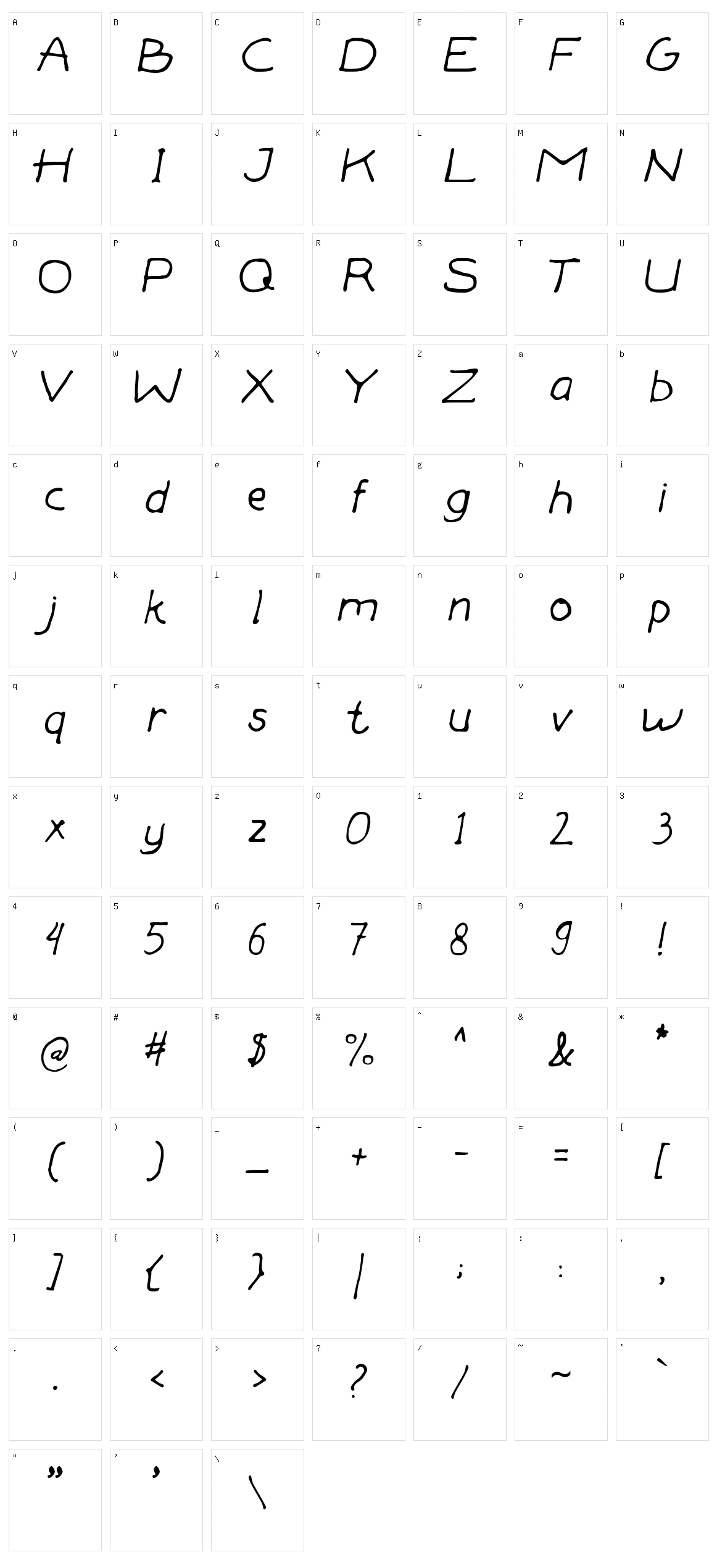
The free font Forestia Handed is carefully designed by Dedisain Studio, showcasing a thoughtful balance of creativity and usability and falls under the Script font style. When you download the ZIP file, it contains only 2399.88 KB of font files, making it lightweight and quick to download. Please review the license details below to understand permitted usage and distribution rights. If license information is not available, we recommend using this font for personal projects only or contacting the author directly for commercial usage permissions.